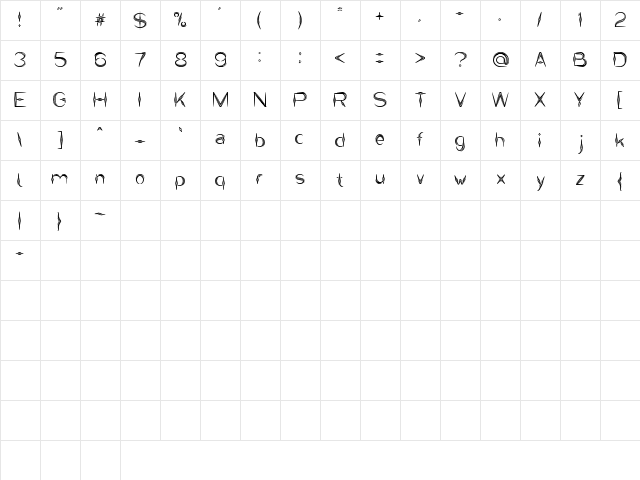
IVORY CULTURE Regular Free Font
IVORY CULTURE Regular
Design Context for IVORY CULTURE
IVORY CULTURE is a composed and adaptable typeface that performs quietly and consistently across a wide range of design contexts.
Pro Tip: Use IVORY CULTURE in both headline and body roles to test its range before committing to a single application.